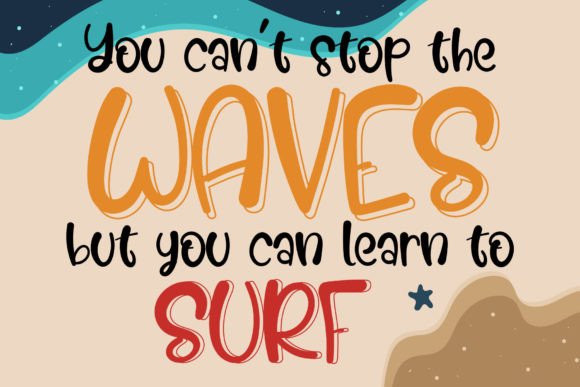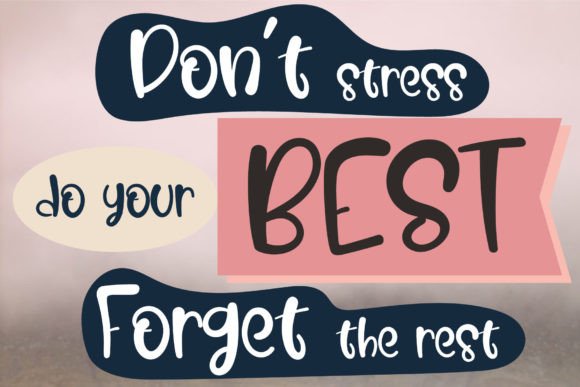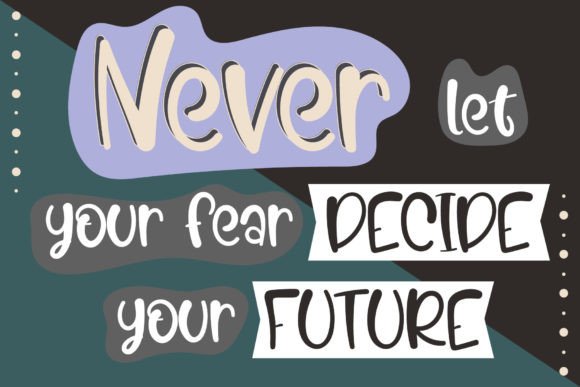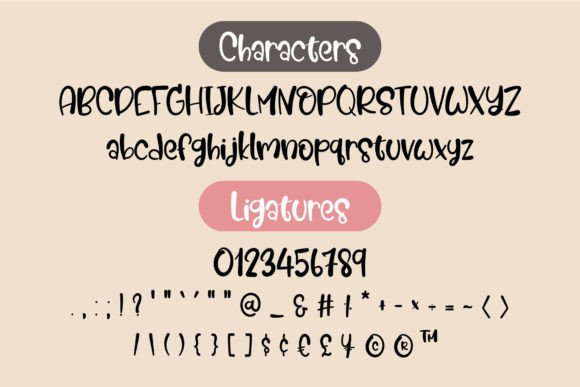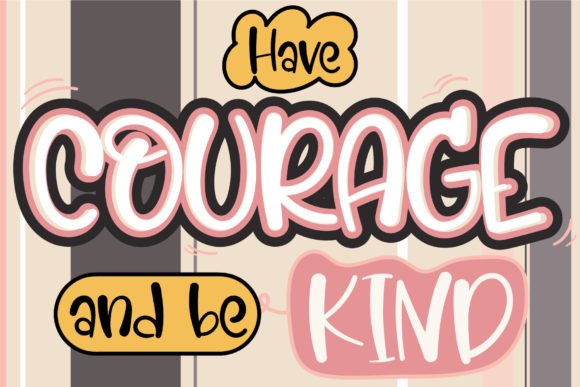
Richard Latin Font
**Richard Latin: A Cute and Casual Handwritten Font**
*Richard Latin* is a delightful and casual handwritten font that exudes a warm and friendly charm. With its inviting and approachable style, this font is a versatile choice for a wide range of design projects, making any creative idea shine as a true work of art.
One of the defining characteristics of Richard Latin is its endearing and casual appeal. The font’s letters are crafted with a relaxed and playful touch, creating an instant connection with the viewer. This friendly quality makes Richard Latin an excellent choice for projects that seek to engage and connect with the audience on a personal level.
The versatility of Richard Latin makes it a valuable asset for various design contexts. Whether you’re using it for social media, branding, DIY projects, or any creative endeavor, this font infuses a sense of approachability and authenticity.
In the realm of social media, Richard Latin is a standout choice for those looking to add a personal touch to their posts. Whether it’s Instagram, Facebook, or other platforms, this font can enhance the relatability of your content. It’s ideal for quotes, captions, and any text elements that require a friendly and approachable demeanor.
For DIY projects, Richard Latin transforms ordinary creations into pieces of art. Whether you’re designing greeting cards, posters, or handmade crafts, this font brings a sense of handmade authenticity to your work. Its casual yet stylish appearance adds a unique character to your DIY endeavors, making them more memorable and endearing.
In branding and logo design, Richard Latin conveys a sense of approachable professionalism. It’s well-suited for businesses that want to appear friendly and down-to-earth while maintaining a sense of style. Whether it’s a small boutique or a local cafe, this font helps create a brand identity that resonates with customers.
Richard Latin’s readability is another one of its strengths. Despite its casual and handwritten appearance, the font maintains clarity and legibility, ensuring that your message is easily understood. This balance between style and readability is what makes Richard Latin an effective choice for various design applications.
In summary, *Richard Latin* is a cute and casual handwritten font that adds a friendly and approachable touch to your creative projects. Its versatility makes it suitable for social media, branding, DIY endeavors, and more. With its endearing and playful style, Richard Latin helps you create designs that engage and connect with your audience, turning every idea into a genuine work of art.